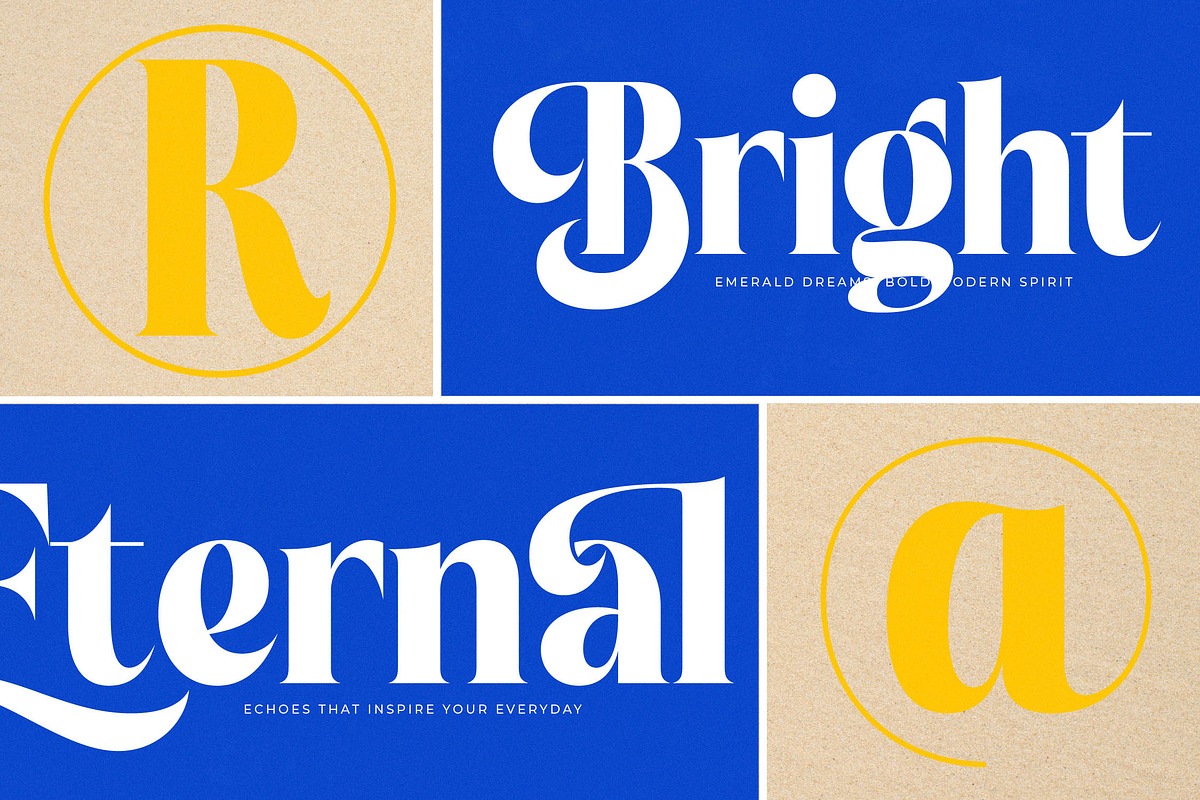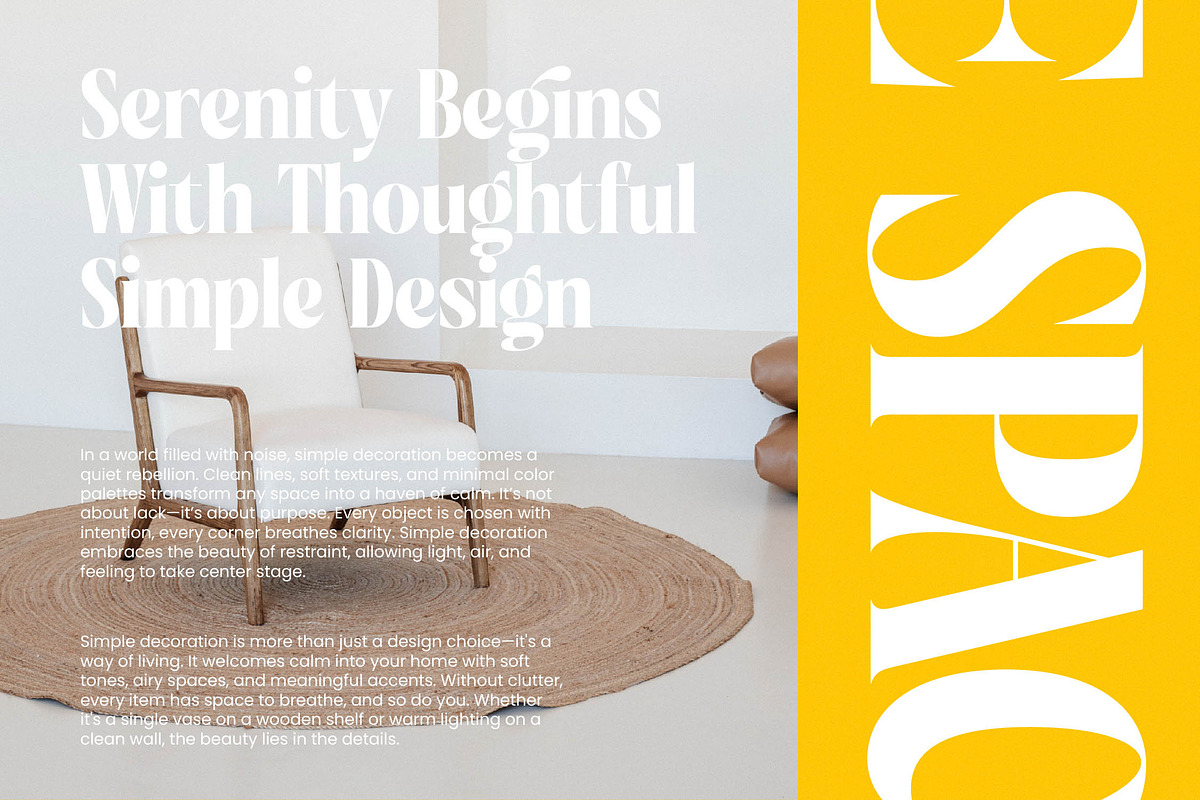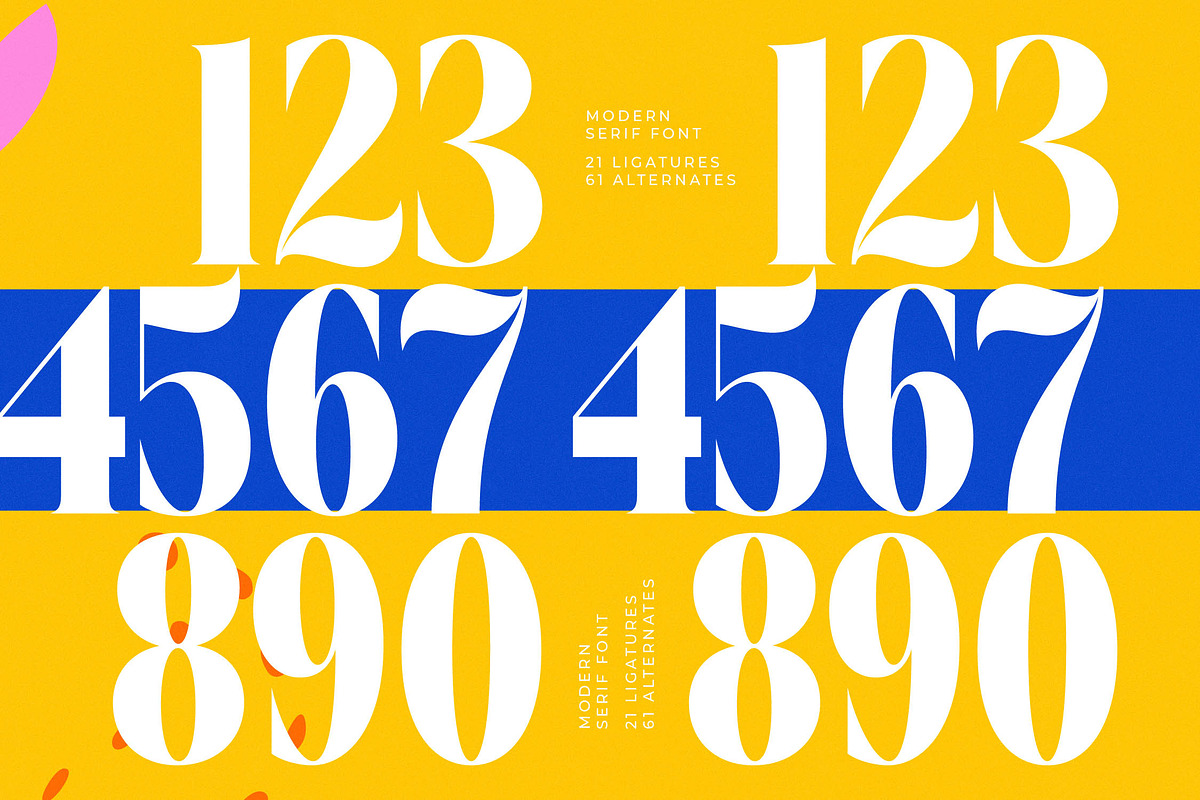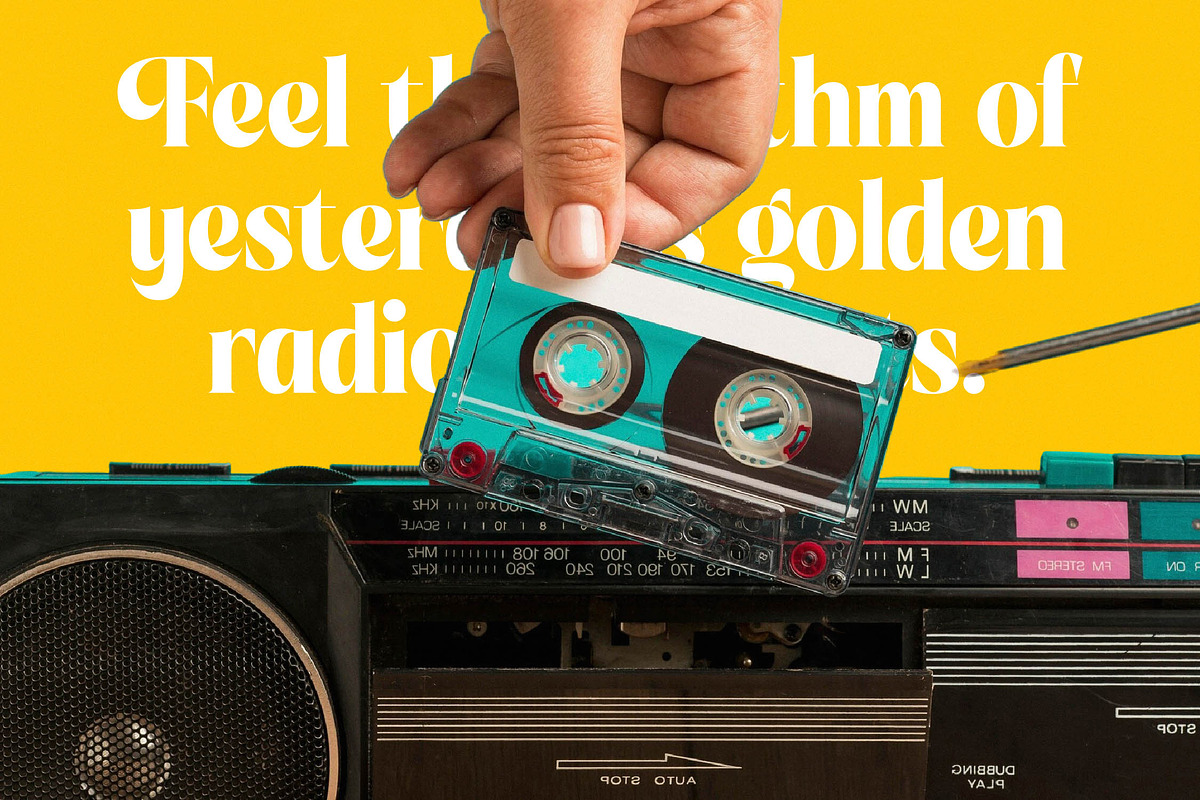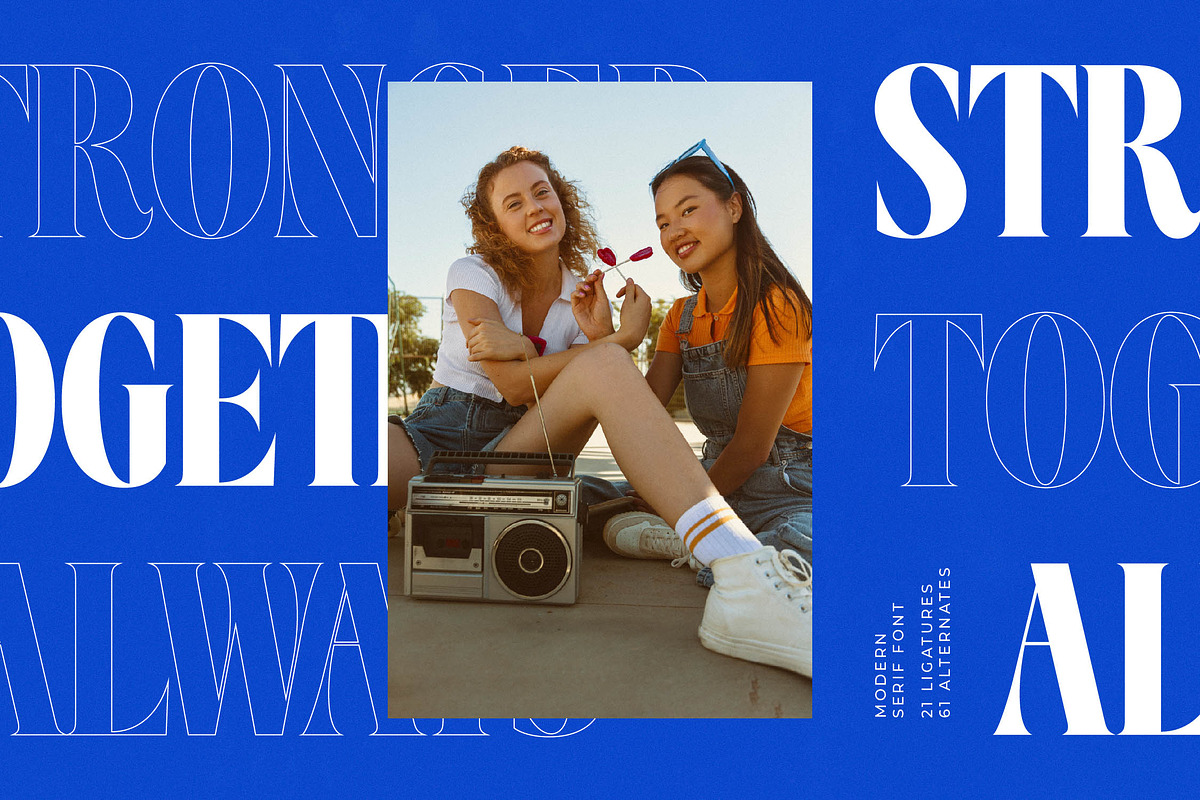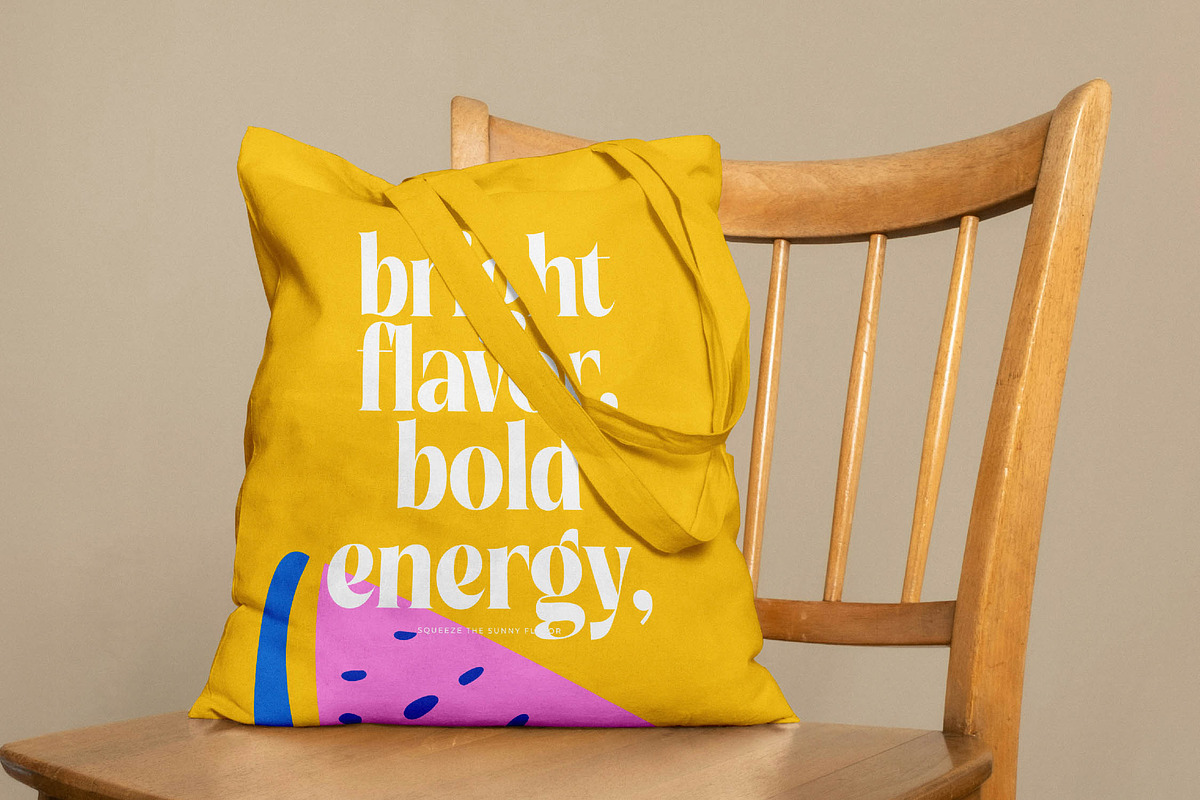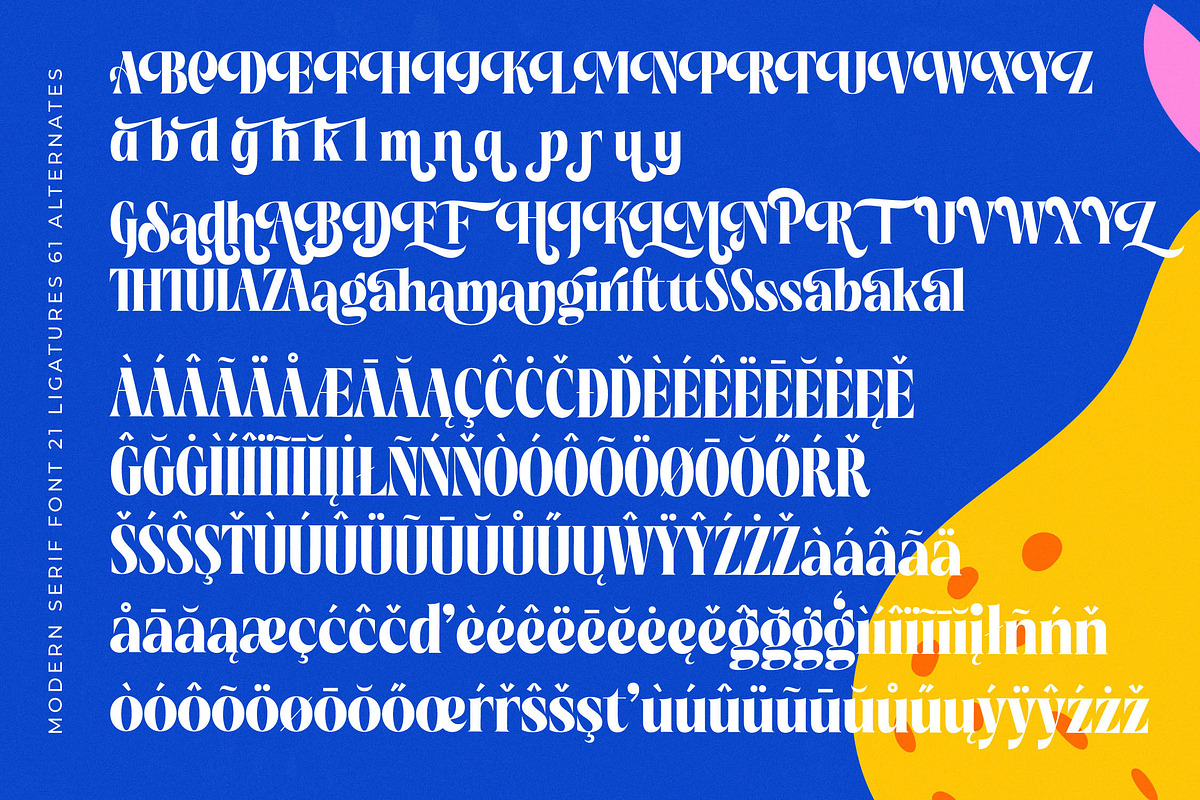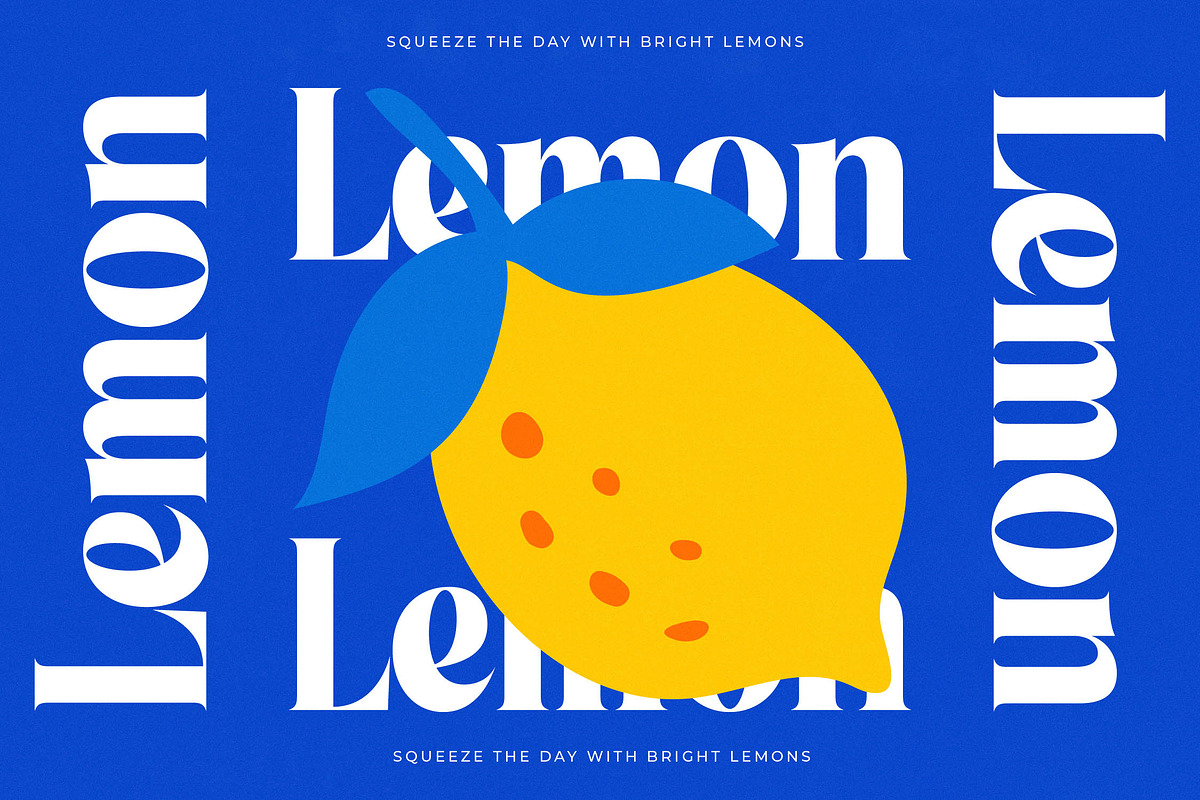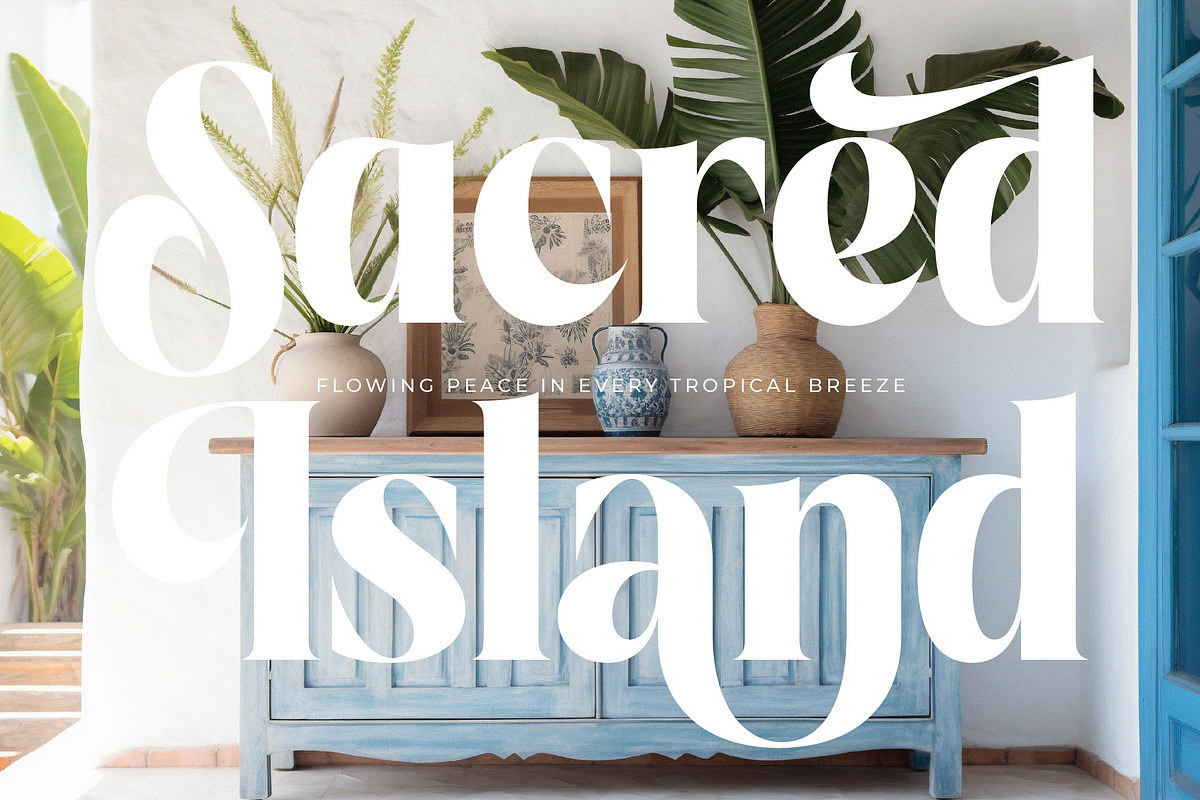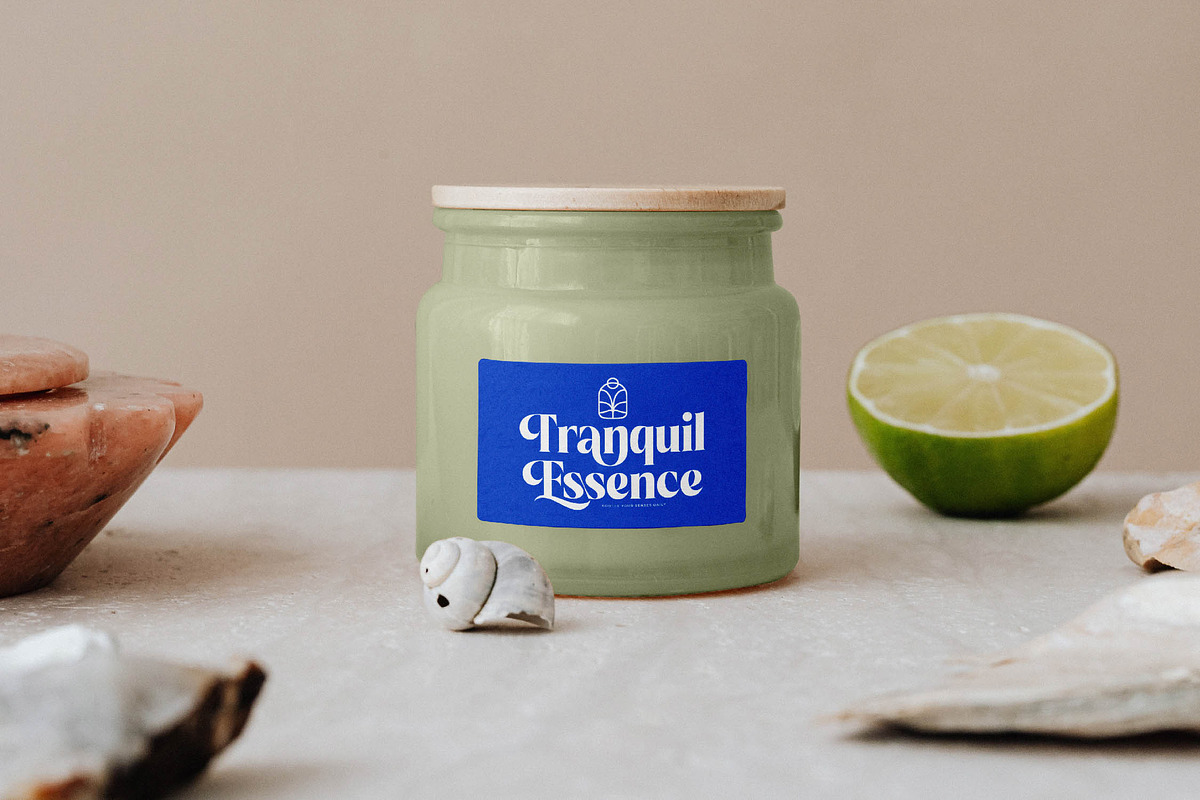
Beachy Lemon Modern Serif Font
Experience the vibrant soul of summer with Beachy Lemon, a typeface that captures the essence of sunshine and coastal elegance in every stroke. This font invites designers to embrace a world of playful sophistication where every character tells a story of warmth and style.
Inspired by the fluid motion of ocean waves and the sharp zest of citrus, this typeface bridges the gap between mid-century nostalgia and contemporary aesthetics. It reflects a visual atmosphere that is both refreshing and timelessly chic, perfect for projects that require a touch of organic flair and artistic energy.
As a modern serif display, this typeface offers unparalleled luxury typography through its high-contrast serif design. It functions perfectly as an editorial font that delivers maximum branding impact for high-end clients seeking a unique and memorable visual voice.
Riding the wave of the current modern serif trend, this typeface stands out among editorial display fonts for its bold personality. It represents the pinnacle of character-driven typography, meeting the market demand for fonts that are expressive, versatile, and deeply resonant.
This font is the ideal choice for logo design, high-end branding, and sophisticated editorial layouts. Its versatility extends beautifully into premium packaging, wedding invitations, and the fast-paced, high-aesthetic world of fashion marketing.
Packed with a comprehensive set of ligatures and alternates, the font allows for endless creative customization. It includes decorative swashes, full multilingual support, and a wide range of international characters to ensure global compatibility for all your creative ventures.
- Ligature 021 Alternate 061